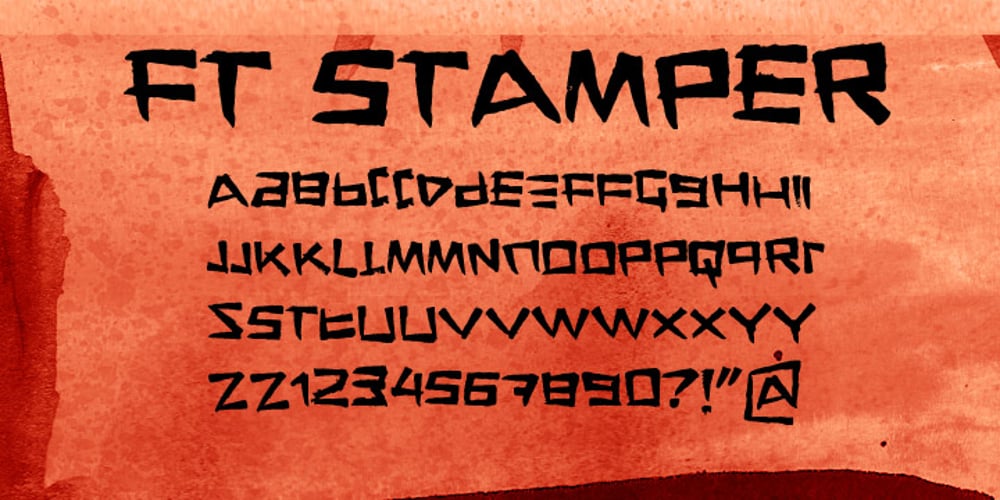
FT Stamper
FT Stamper font
FT Stamper Font Family was designed by Emil Karl Bertell and published by Fenotype. FT Stamper contains 1 styles and family package options. FT Stamper is made with ink and rubber stamp. It has an oriental calligraphic vibe.